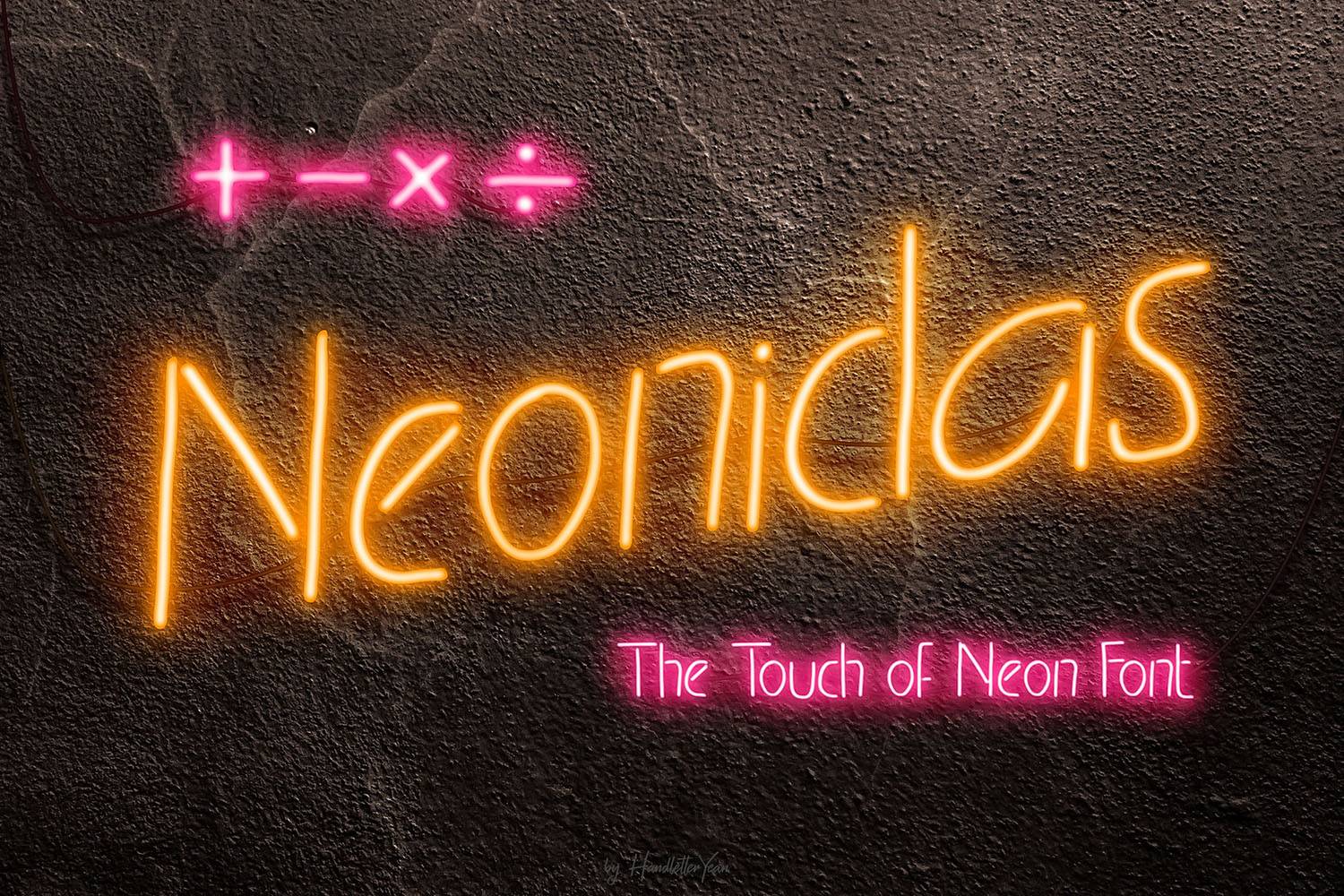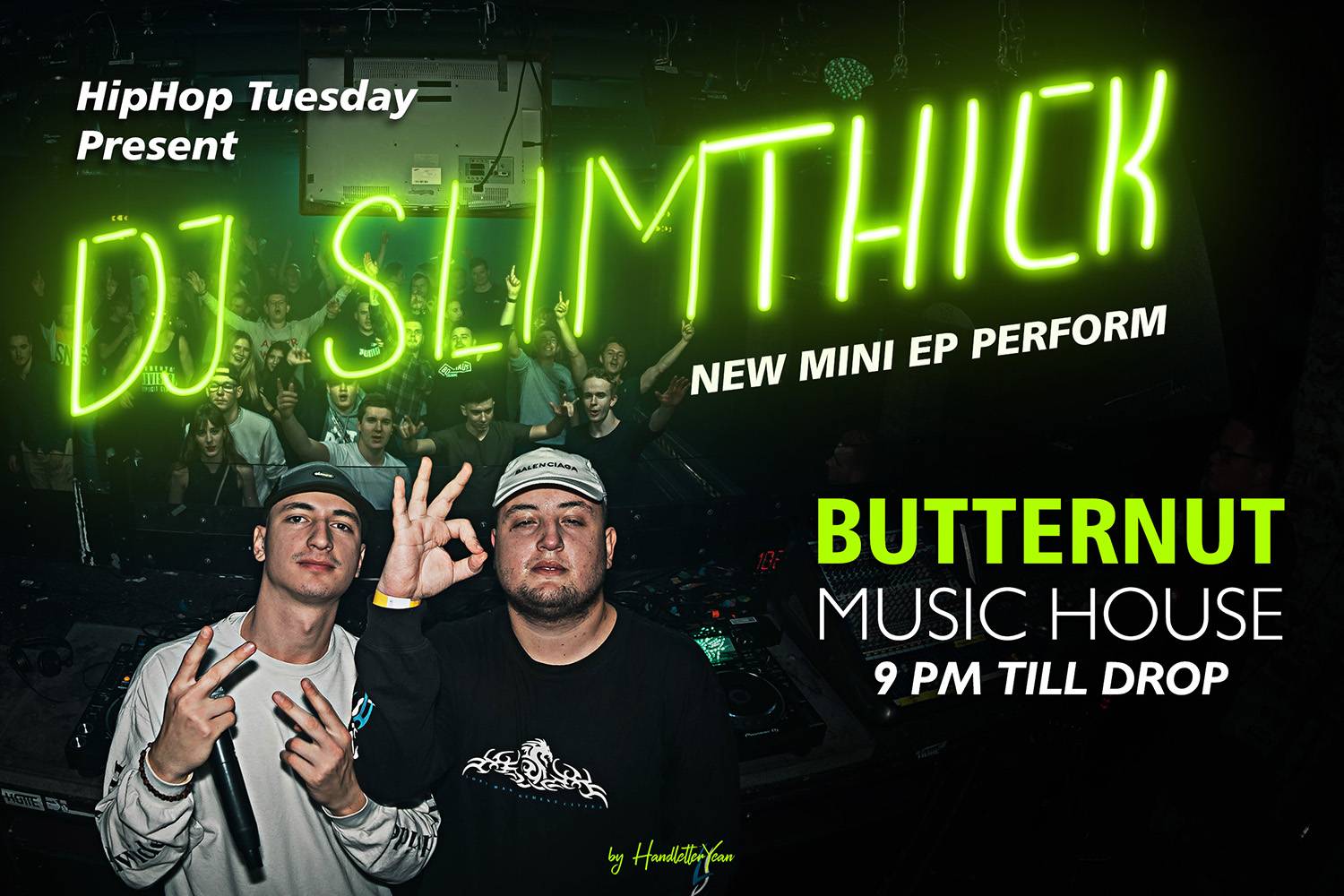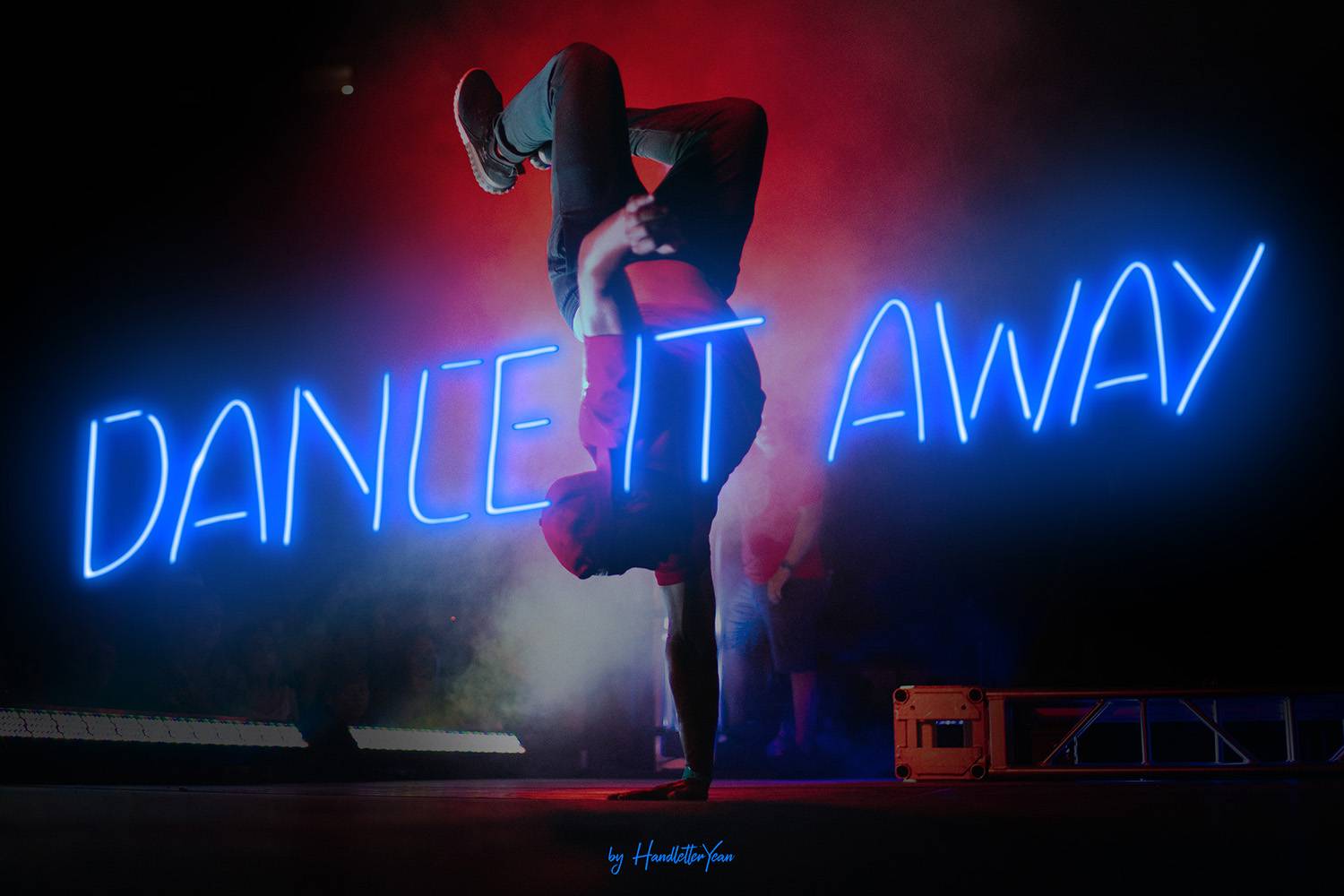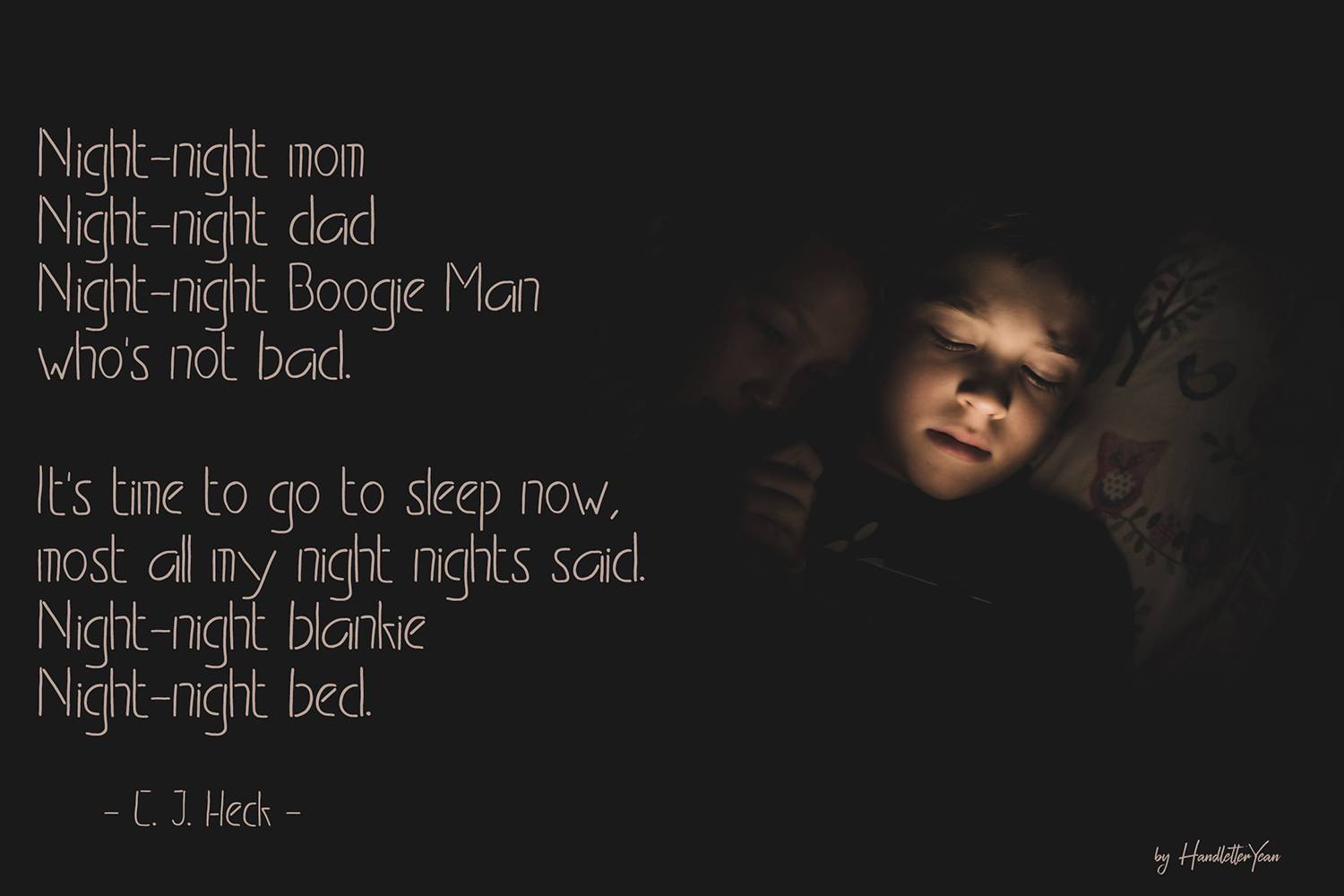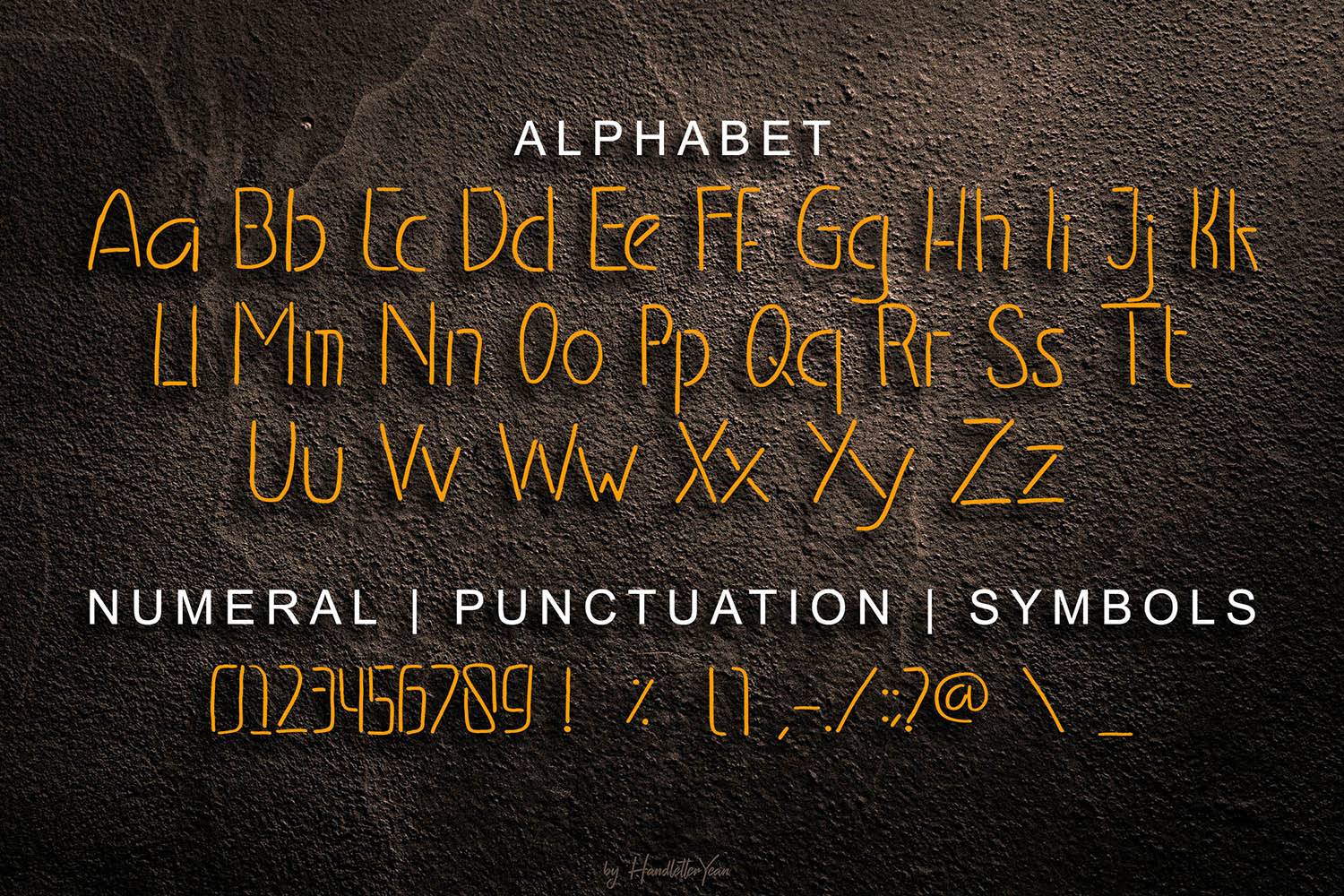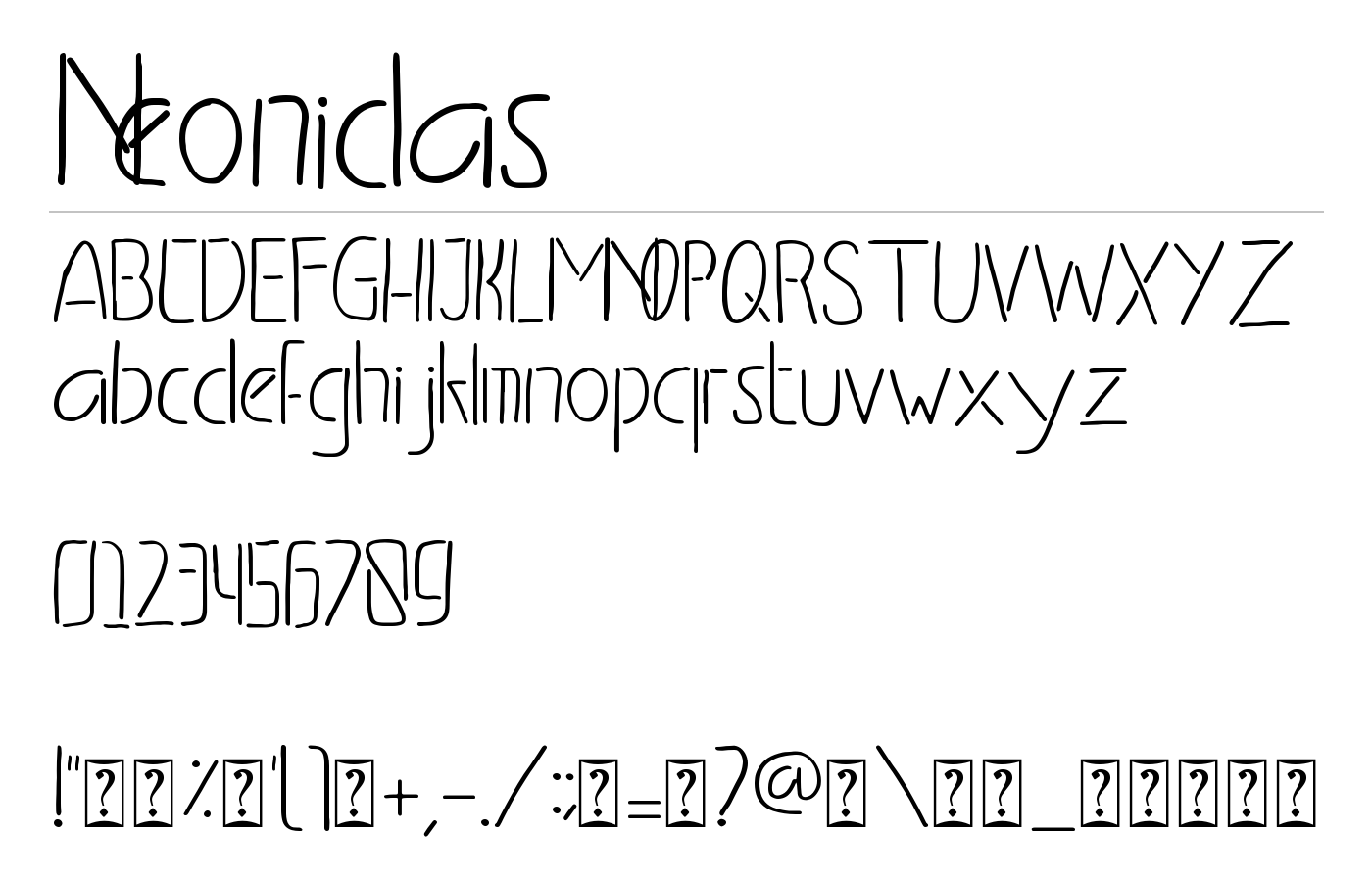
Neonidas is a slender, hand-drawn sans serif font with a playful and imaginative character. Its thin strokes and quirky letterforms give it a casual, artistic feel perfect for creative projects, informal branding, and unique headlines that seek to stand out with a personal touch. This font works best in designs that want to convey friendliness and originality without sacrificing readability.
Neonidas Font
About Neonidas Font